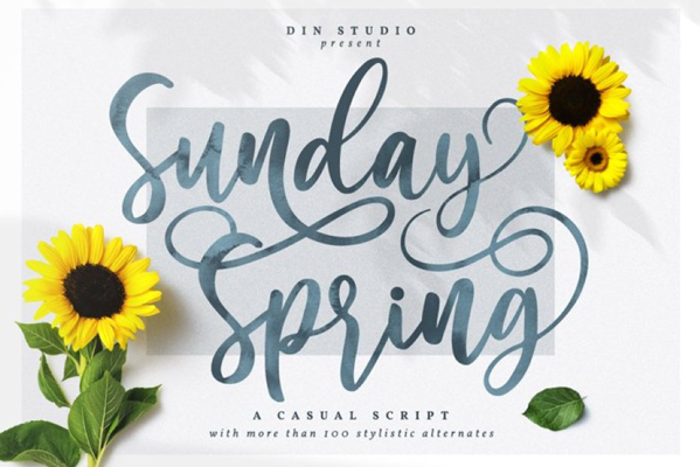
Sunday Spring Font
Product Description :
Say Hello to the Sunday Spring Chic Brush Font. Made from natural hand brush. it will make your design project more beautiful. The font is suitable for any design like branding, fashion, print template, quotes, wedding and etc.